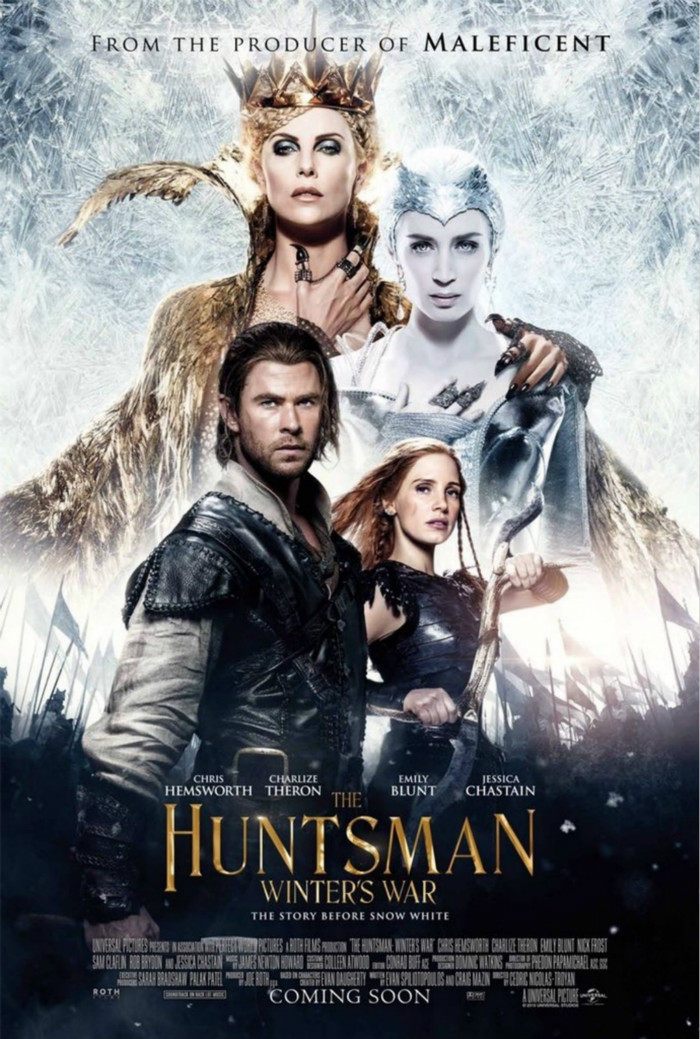
The Huntsman Winter's War Font
ActionThe Huntsman: Winter’s War is a fantasy action-adventure film that serves as both a prequel and sequel to the 2012 film "Snow White and the Huntsman." It follows the story of Eric, the Huntsman, as he teams up with warrior Sara to stop the evil Queen Ravenna and her sister Freya from conquering the land.
The movie title "The Huntsman Winter’s War" on the poster is set in Denver Serial Light, a transitional typeface consisting of seven weights, from Light to Black, and their respective italics. The font was created by Softmaker, a German design company.